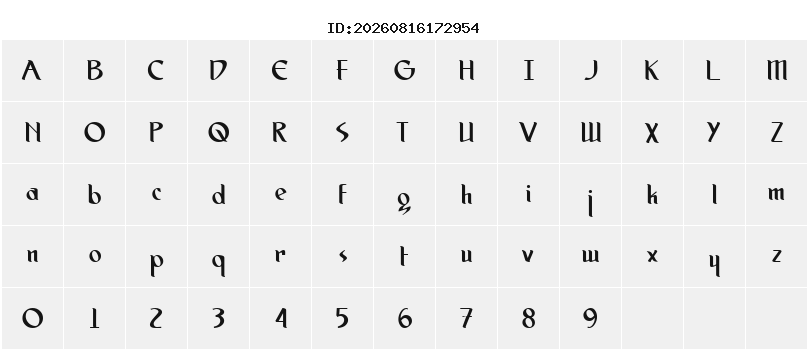
• Font Name: Spirit Medium
• Full Font Name: Spirit Medium
About Spirit Medium.ttf
Spirit Medium.ttf is a modern, elegant sans-serif font designed for ultimate readability and visual harmony. Perfect for branding, headlines, web design, and print materials.